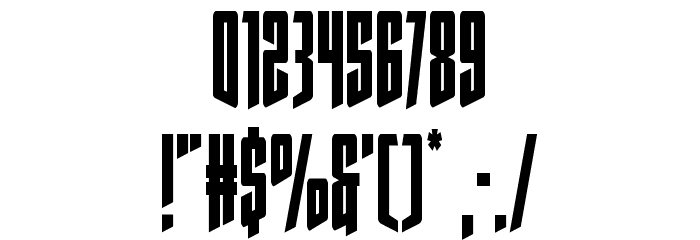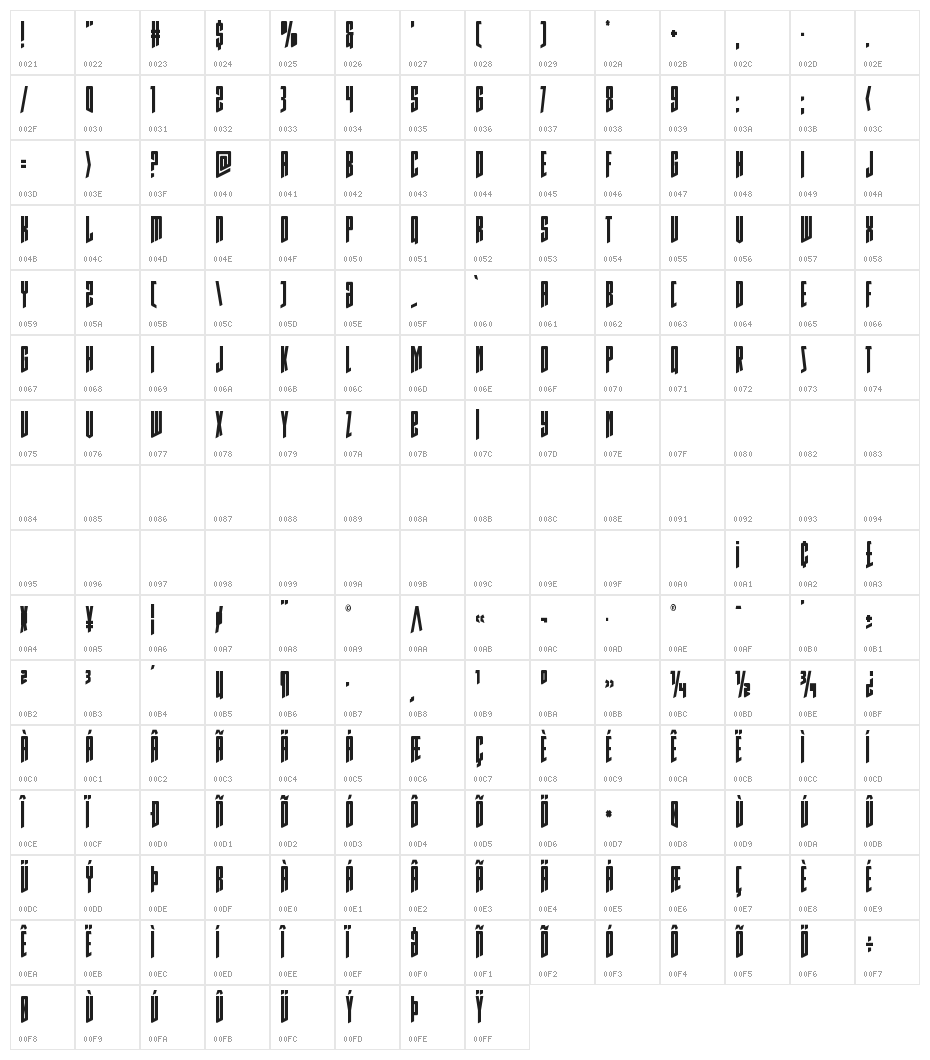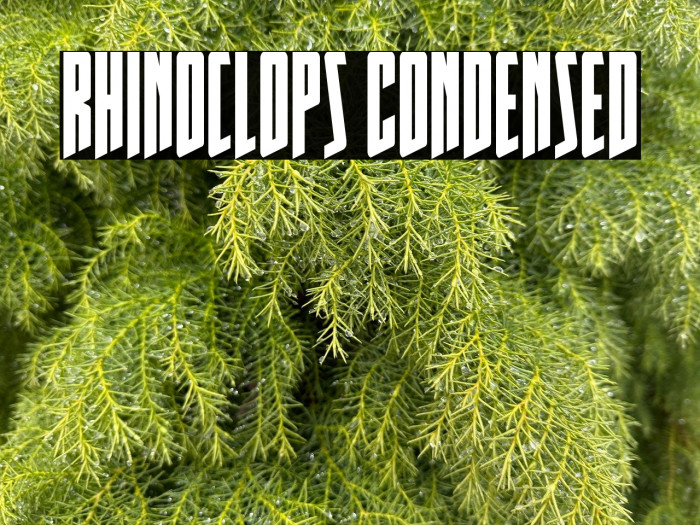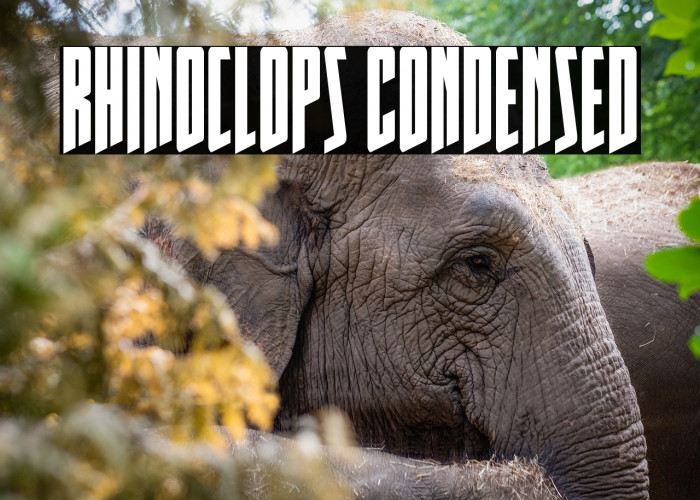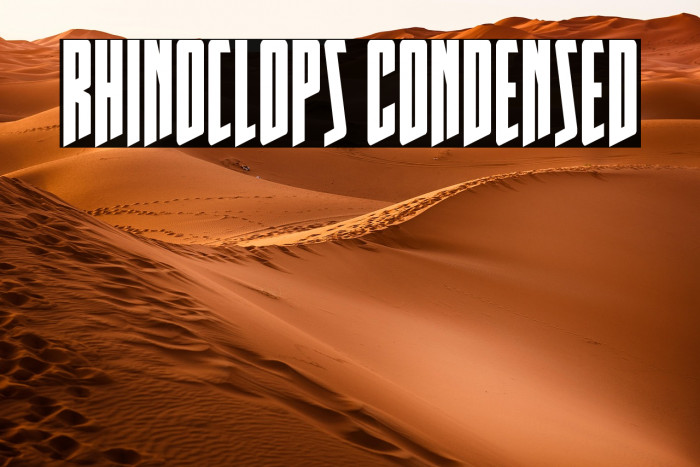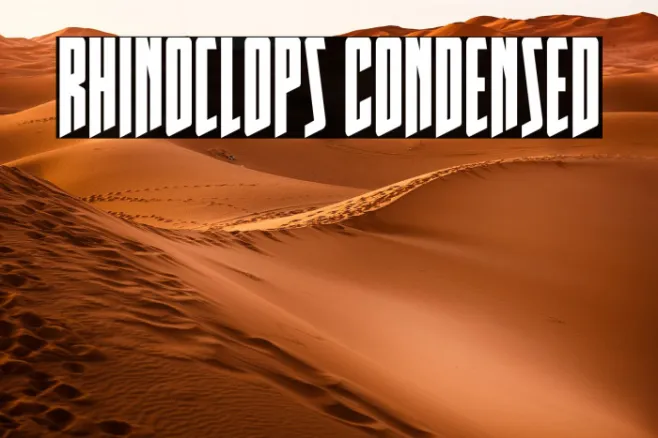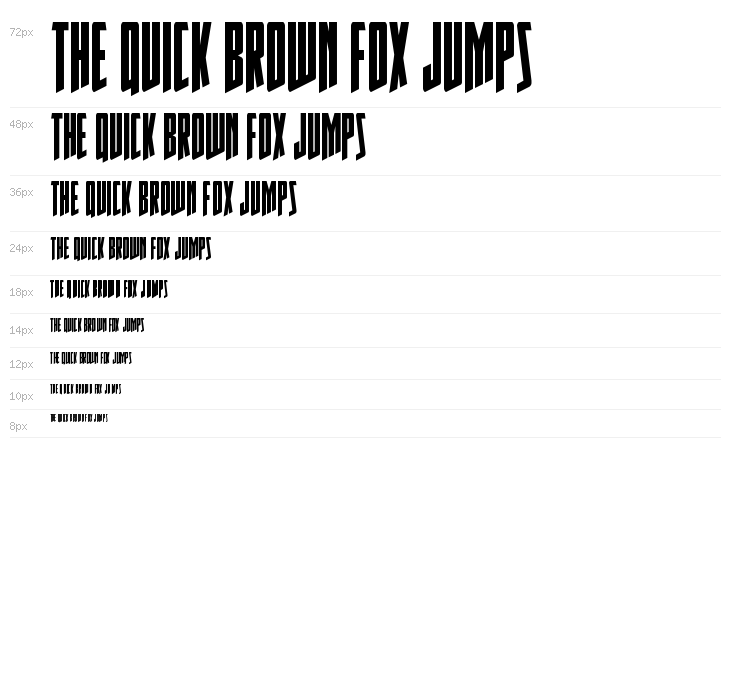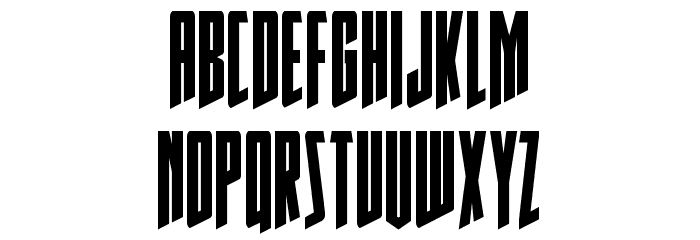
Rhinoclops Condensed Font
Rhinoclops Condensed Description
This font features a bold and condensed style with sharp, angular lines that give it a strong, impactful presence. The uppercase letters are tall and narrow, emphasizing verticality, while the lowercase letters maintain a consistent width, creating a cohesive look. The numbers and special characters follow the same condensed and angular design, ensuring uniformity across all glyphs. The font's unique style makes it stand out, with a modern and edgy appearance that is both eye-catching and memorable.